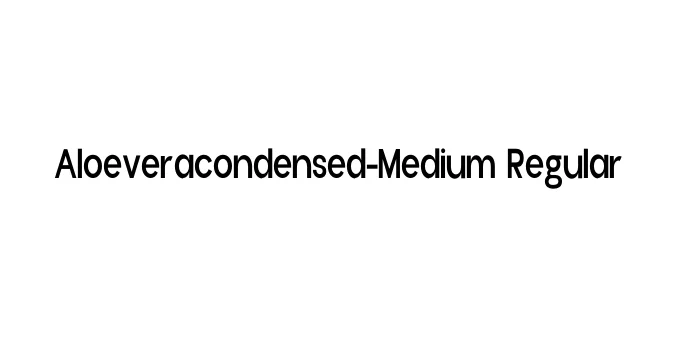
Aloeveracondensed-Medium Regular
Aloevera Condensed Medium Regular is a sophisticated sans-serif typeface meticulously crafted to provide a modern, high-impact aesthetic. Its condensed structure allows for efficient use of space without sacrificing clarity, making it a favorite among designers for bold headlines and sleek editorial layouts. The Medium weight strikes a perfect balance between visual strength and elegance, ensuring that the text remains legible even at smaller display sizes while maintaining a commanding presence in large-scale prints.
The history of this typeface is rooted in the demand for contemporary display fonts that bridge the gap between geometric precision and organic flow. Aloevera Condensed features clean lines and subtle curves that give it a versatile personality, suitable for both digital interfaces and traditional publishing. Its streamlined architecture is particularly effective in branding projects, where a minimalist yet professional appearance is required to convey authority and modern sensibilities.
Aloeveracondensed-Medium Regular Best Uses
Perfect for high-impact, space-efficient titles in magazines or news sites.
Ideal for logos and corporate identities that require a sleek, modern look.
Excellent for vertical stories and Instagram posts where bold text is needed.
Fits beautifully on slim product labels, cosmetics, and luxury goods.
Highly effective for large-scale promotional materials and event posters.